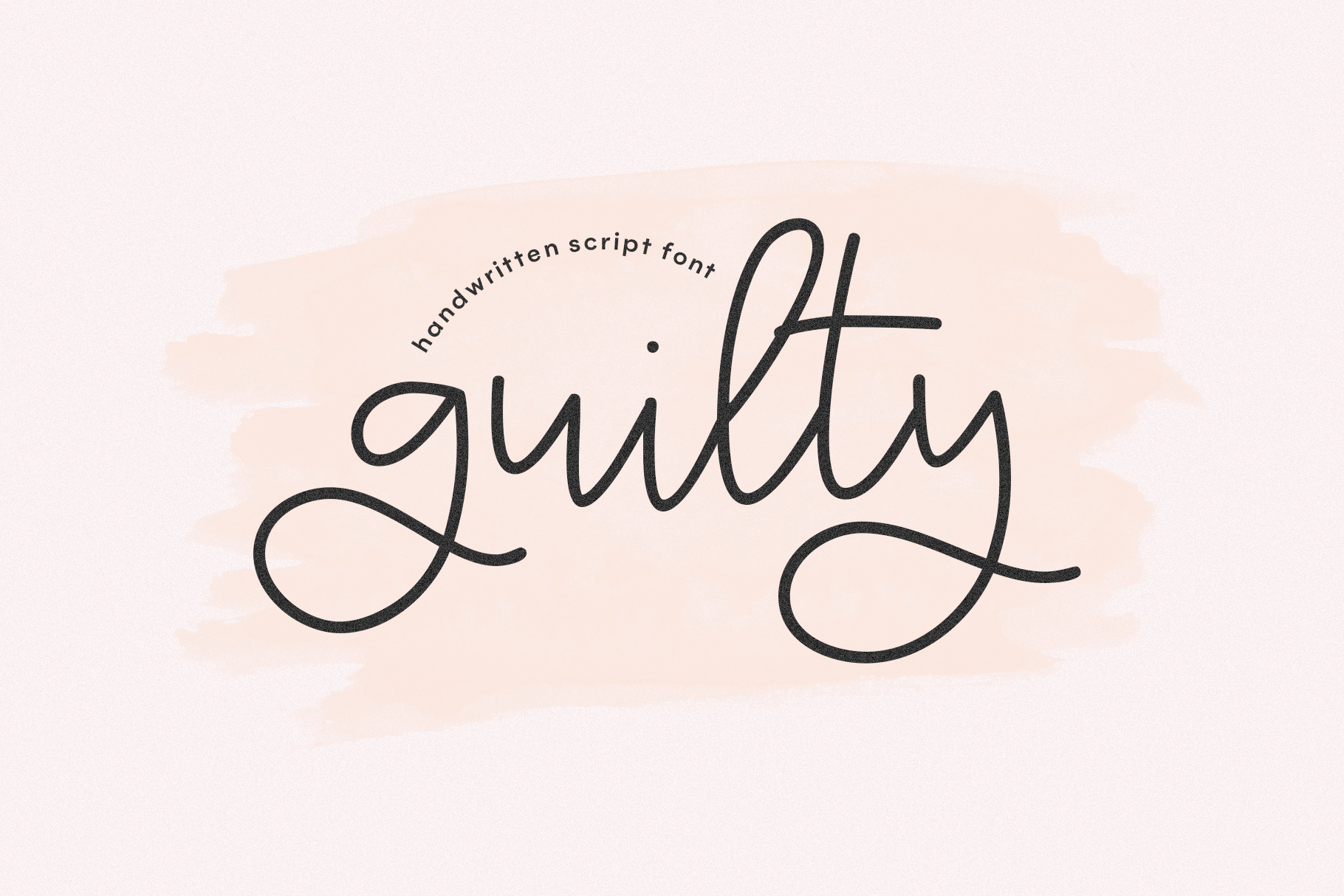
Guilty | Handwritten Script Font
Guilty is a handwritten script font.
This font is perfect for crafts, svg files, quotes, headings, blogs, logos, invitations, wedding decor, farmhouse designs and more!